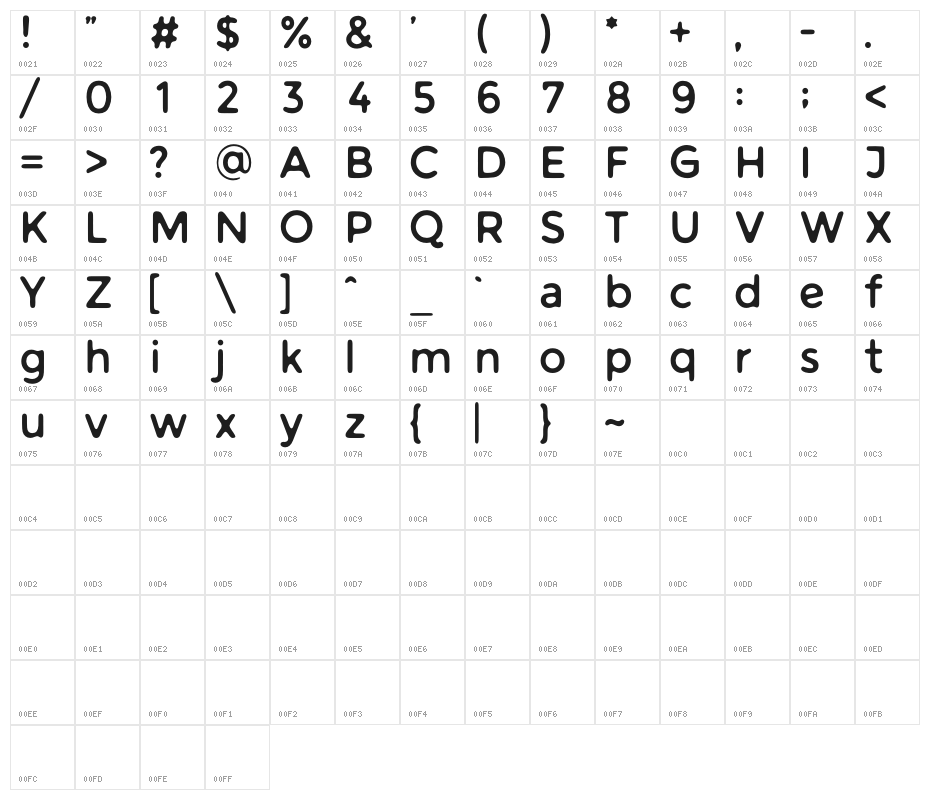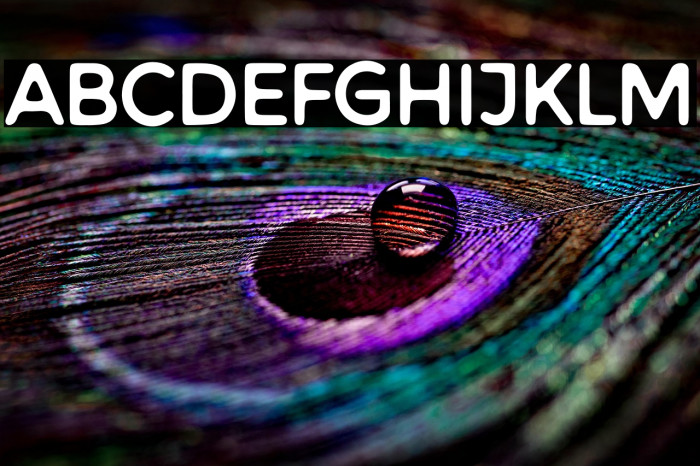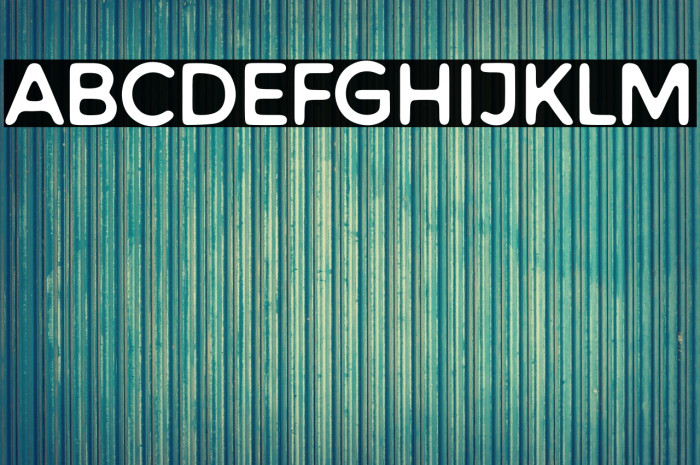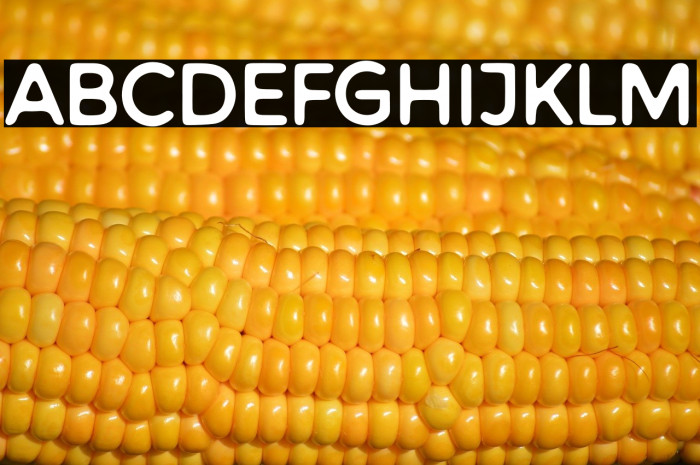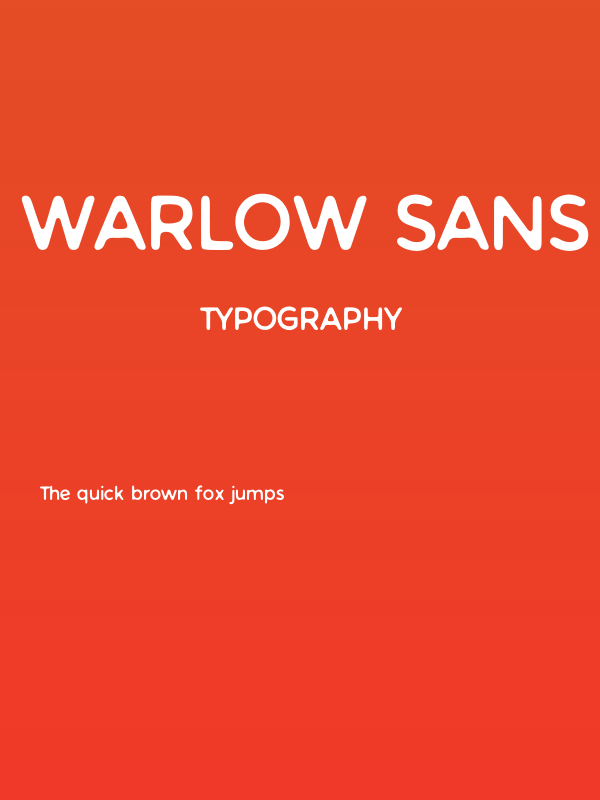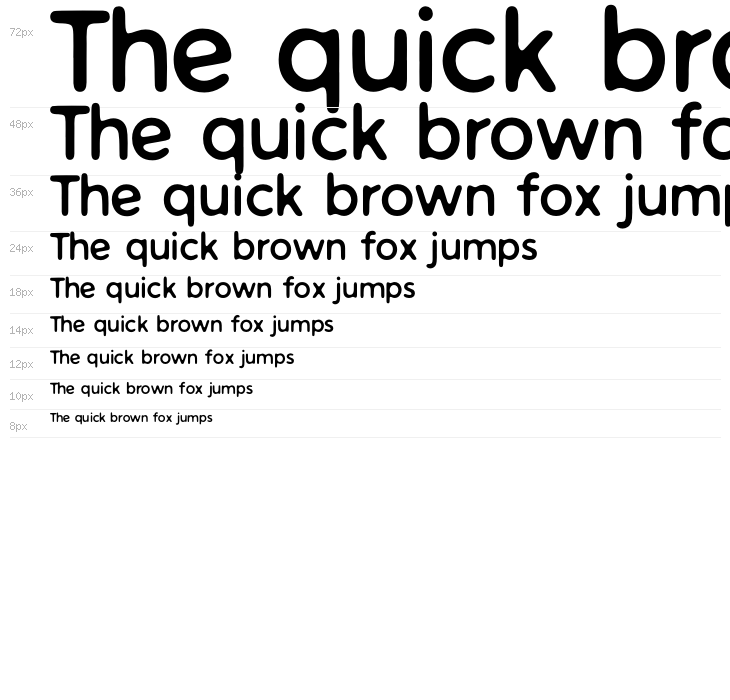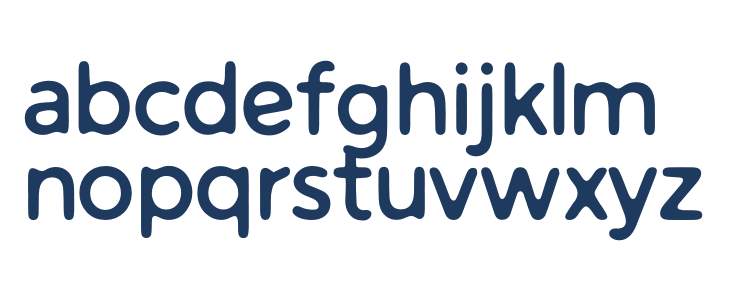
Warlow Sans Font
Warlow Sans Description
This font features a playful and rounded sans-serif style, characterized by its smooth curves and uniform stroke width. The letters are bold and have a friendly appearance, making them highly legible and approachable. The rounded edges give it a soft and modern feel, suitable for a variety of design applications. The numerals and special characters maintain the same rounded and bold aesthetic, ensuring consistency across all glyphs. This font's simplicity and clarity make it versatile for both digital and print media.
| Use Case | Headlines, Logos, User Interfaces |
| Proposed Projects | Ideal for children's books, educational materials, playful branding, and friendly user interfaces. |